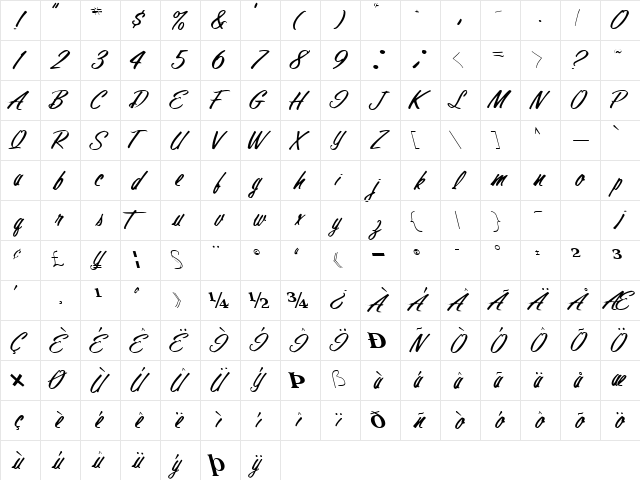
FinalMandate77 Regular
Design Context for FinalMandate77 Typeface
FinalMandate77 is a composed and adaptable typeface that performs quietly and consistently across a wide range of design contexts.